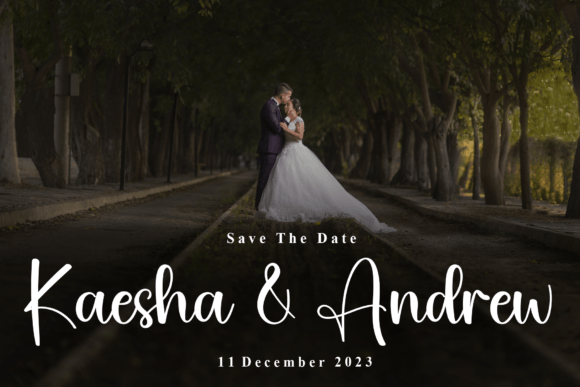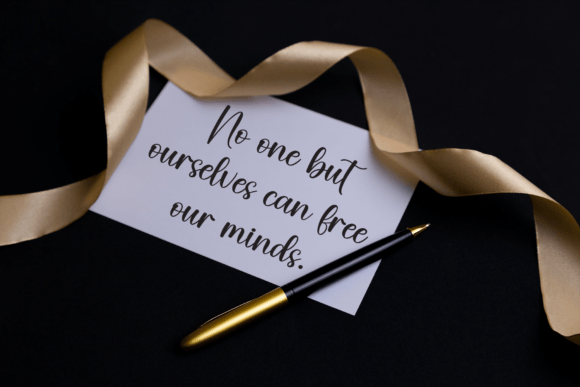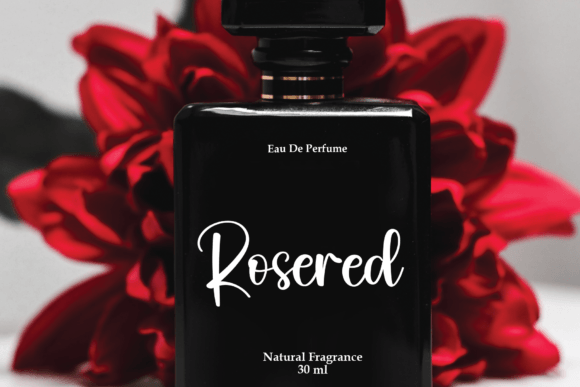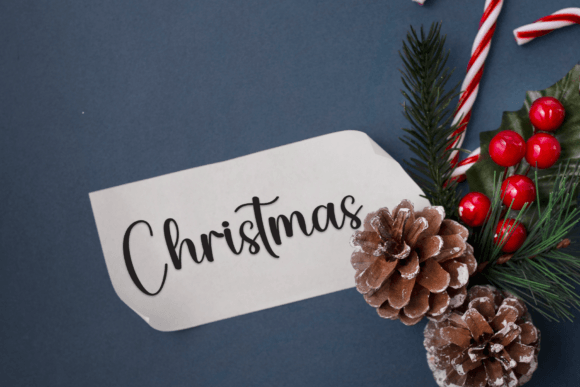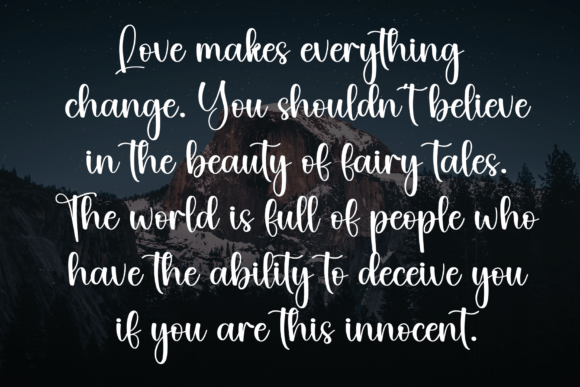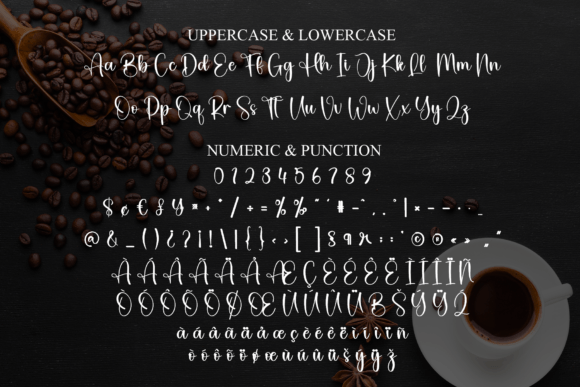
Coffee Font: Elevate Your Designs with a Touch of Elegance
Are you a designer, crafty DIY enthusiast, or simply someone who appreciates the beauty of elegant typography? Look no further than the Coffee Font, a magical script font that can transform any creative project into a stunning work of art. In this article, we’ll dive into the world of Coffee Font, exploring its features, uses, and benefits, as well as provide tips on how to make the most of this versatile and beautiful font.
What is Coffee Font?
Coffee Font is a carefully crafted script font that exudes elegance and sophistication. With its flowing lines, intricate details, and classic charm, this font is perfect for a wide range of creative projects, from Instagram posts and social media graphics to calligraphy scripts and DIY crafts. Whether you’re looking to add a touch of whimsy or create a more formal, luxurious feel, Coffee Font is the perfect choice.
Key Features of Coffee Font
- Elegant and Refined: Coffee Font boasts a sophisticated, high-end feel that’s perfect for designs that require a touch of luxury.
- Versatile: This font is suitable for a wide range of projects, from digital graphics to print materials, and can be used for both personal and commercial purposes.
- Easy to Read: Despite its ornate details, Coffee Font remains highly legible, making it perfect for use in body text, headings, and titles.
- Customizable: With its extensive character set and alternate glyphs, Coffee Font can be tailored to suit your unique design needs.
Using Coffee Font for Instagram and Social Media
In today’s visually-driven social media landscape, having a strong brand aesthetic is crucial. Coffee Font can help elevate your Instagram game and make your feed stand out from the crowd. Here are a few ideas for using Coffee Font on social media:
- Quote Graphics: Use Coffee Font to create stunning quote graphics that showcase your favorite inspirational sayings.
- Brand Headers: Add a touch of elegance to your social media headers and profile pictures with Coffee Font.
- Story Highlights: Create beautiful story highlights with Coffee Font to make your Instagram stories more engaging and visually appealing.
Coffee Font for DIY Projects and Calligraphy
Coffee Font is not just limited to digital use; it’s also perfect for DIY projects and calligraphy. Here are a few ideas for using Coffee Font in your crafty endeavors:
- Hand Lettering: Use Coffee Font as a guide for hand lettering and calligraphy projects, adding your own personal touch and flair.
- DIY Cards and Invitations: Create beautiful, one-of-a-kind cards and invitations with Coffee Font, perfect for special occasions and events.
- Journaling and Scrapbooking: Add a touch of elegance to your journaling and scrapbooking projects with Coffee Font, making them truly unique and personalized.
Tips for Getting the Most out of Coffee Font
To make the most of Coffee Font, here are a few tips to keep in mind:
- Experiment with Colors: Coffee Font looks stunning in a range of colors, from rich blacks and dark grays to soft pastels and metallics.
- Mix and Match: Combine Coffee Font with other fonts and design elements to create unique and visually interesting designs.
- Pay Attention to Spacing: Make sure to adjust the spacing and kerning of Coffee Font to ensure it looks its best in your design.
Coffee Font is a versatile and beautiful script font that can elevate any creative project into a true work of art. With its elegant charm, versatility, and ease of use, this font is perfect for designers, crafty DIY enthusiasts, and anyone looking to add a touch of sophistication to their designs. Whether you’re working on a social media graphic, DIY project, or calligraphy script, Coffee Font is sure to impress.